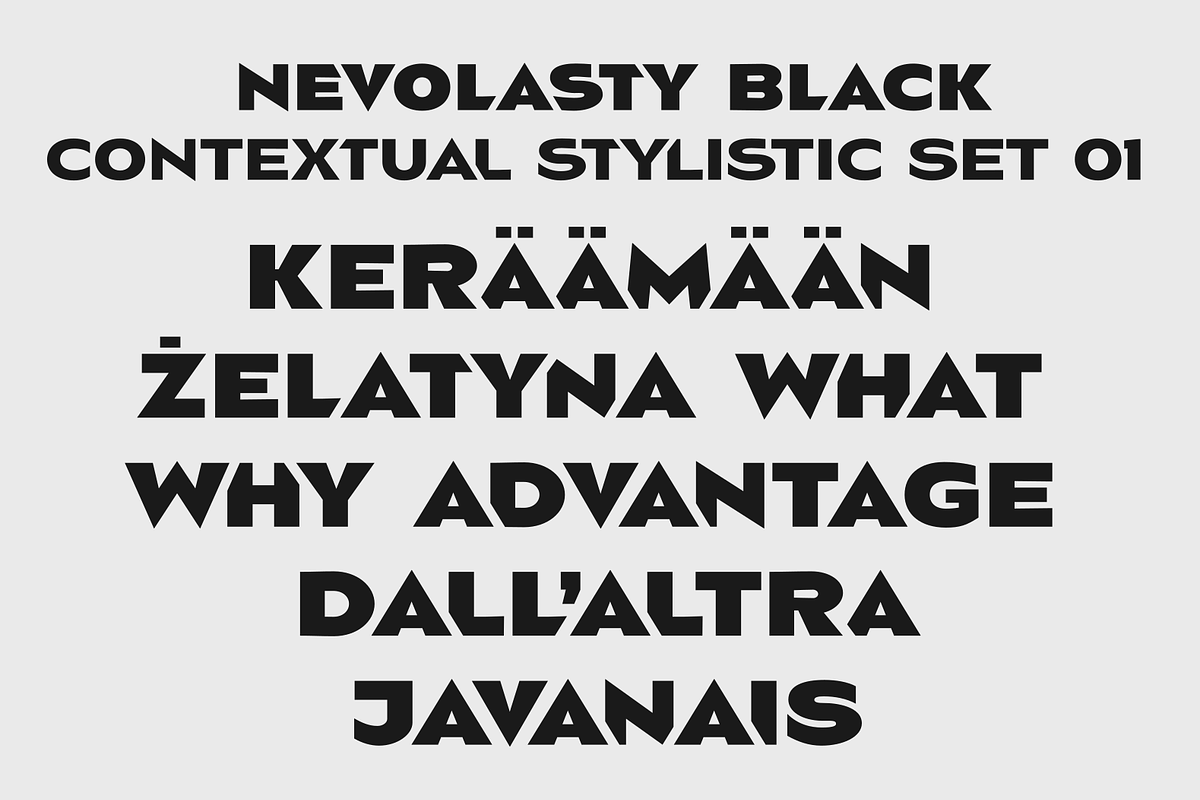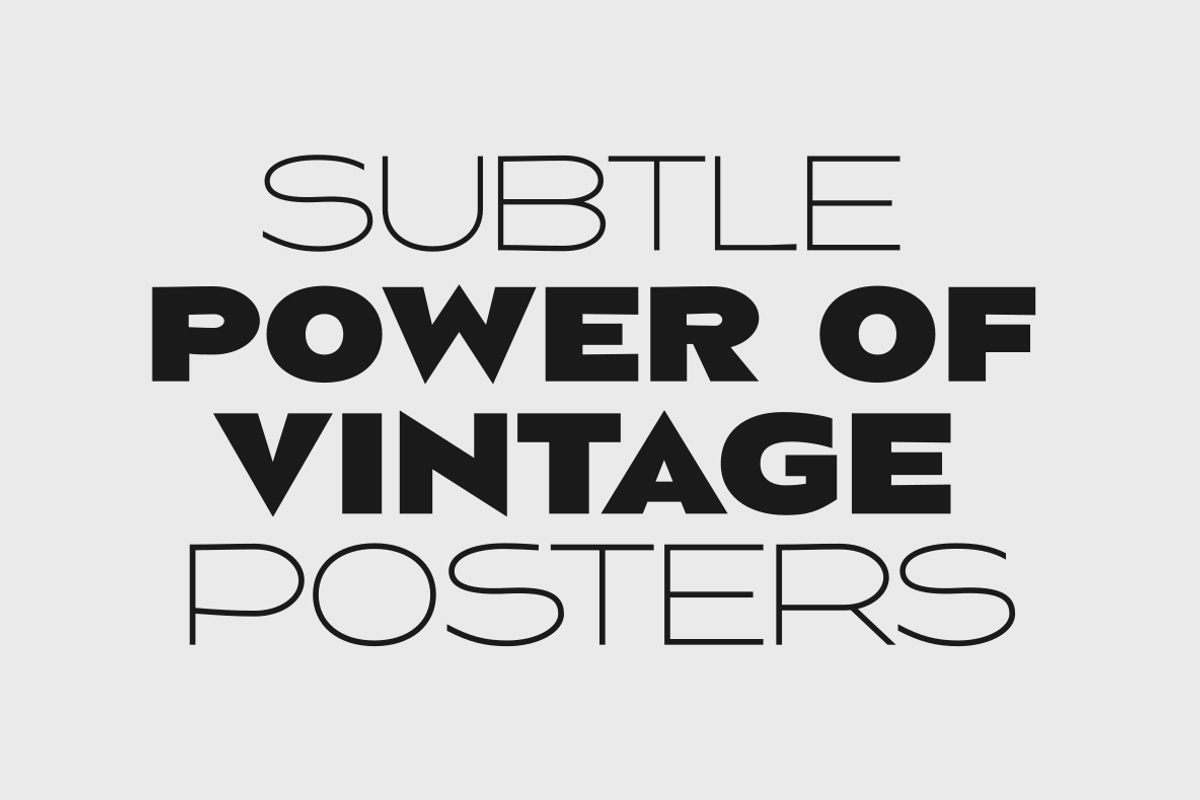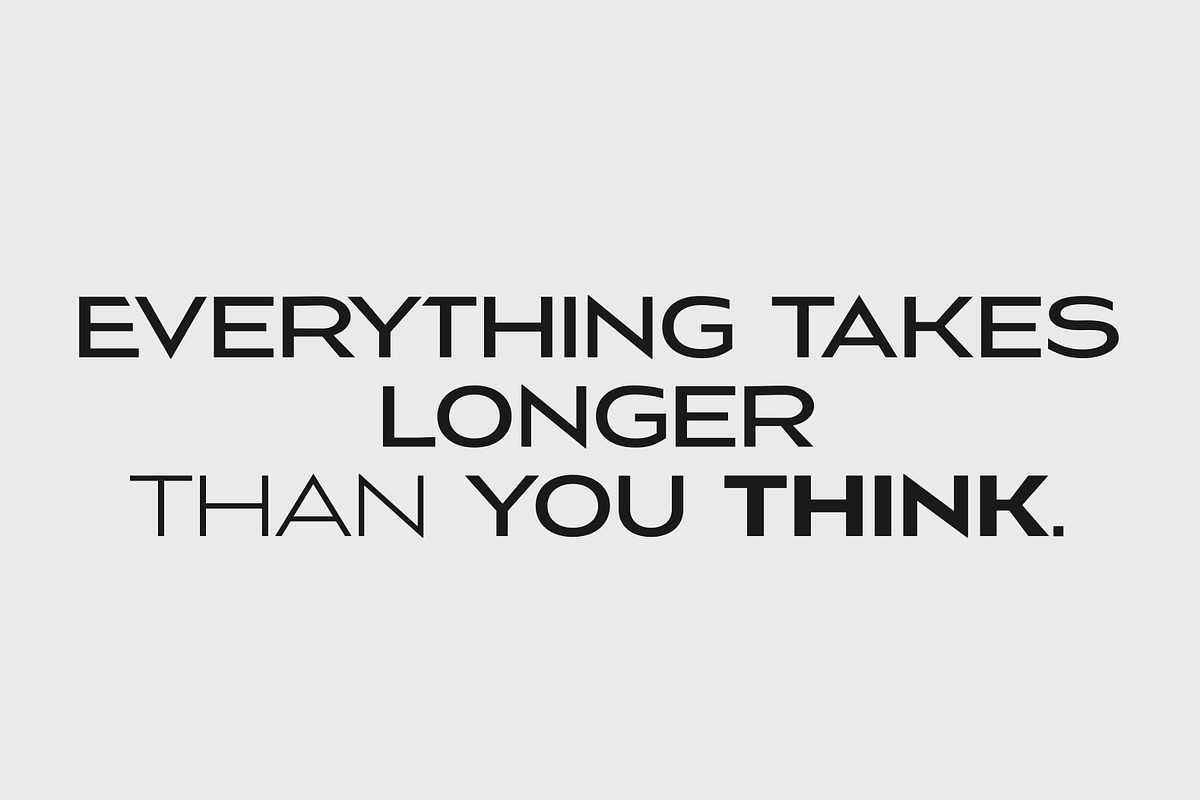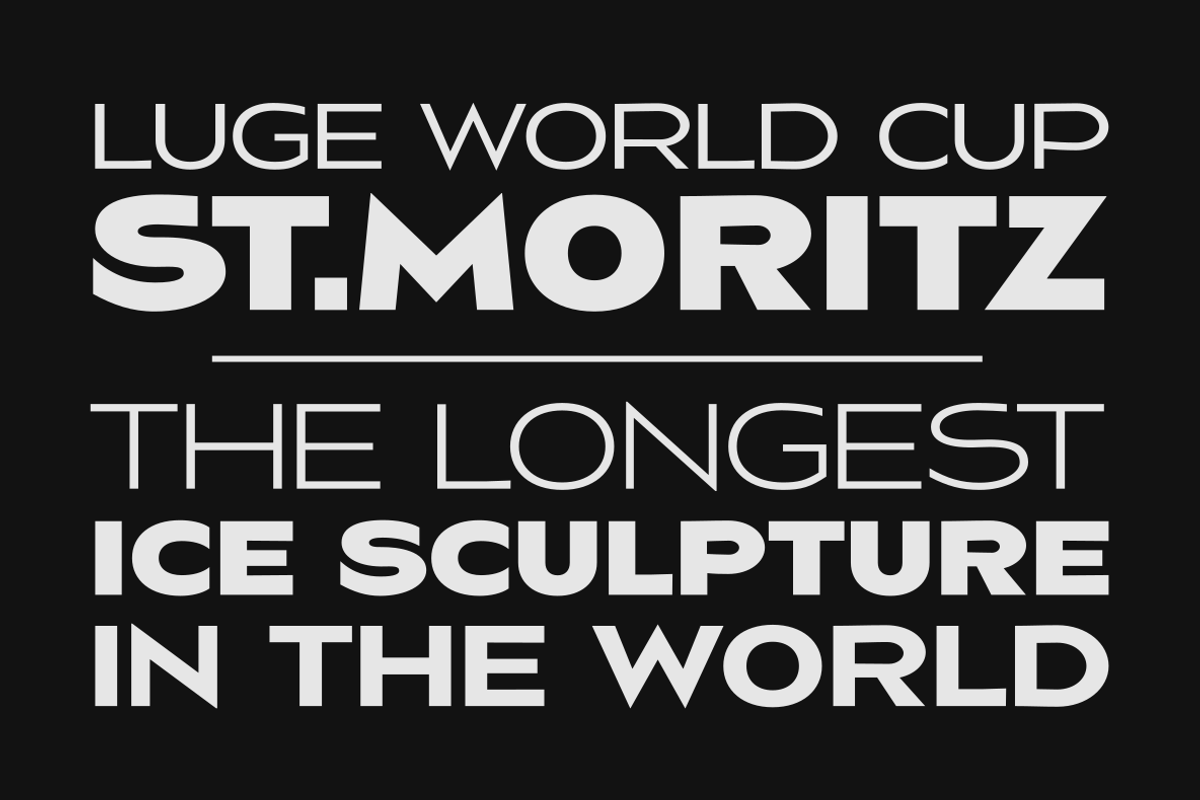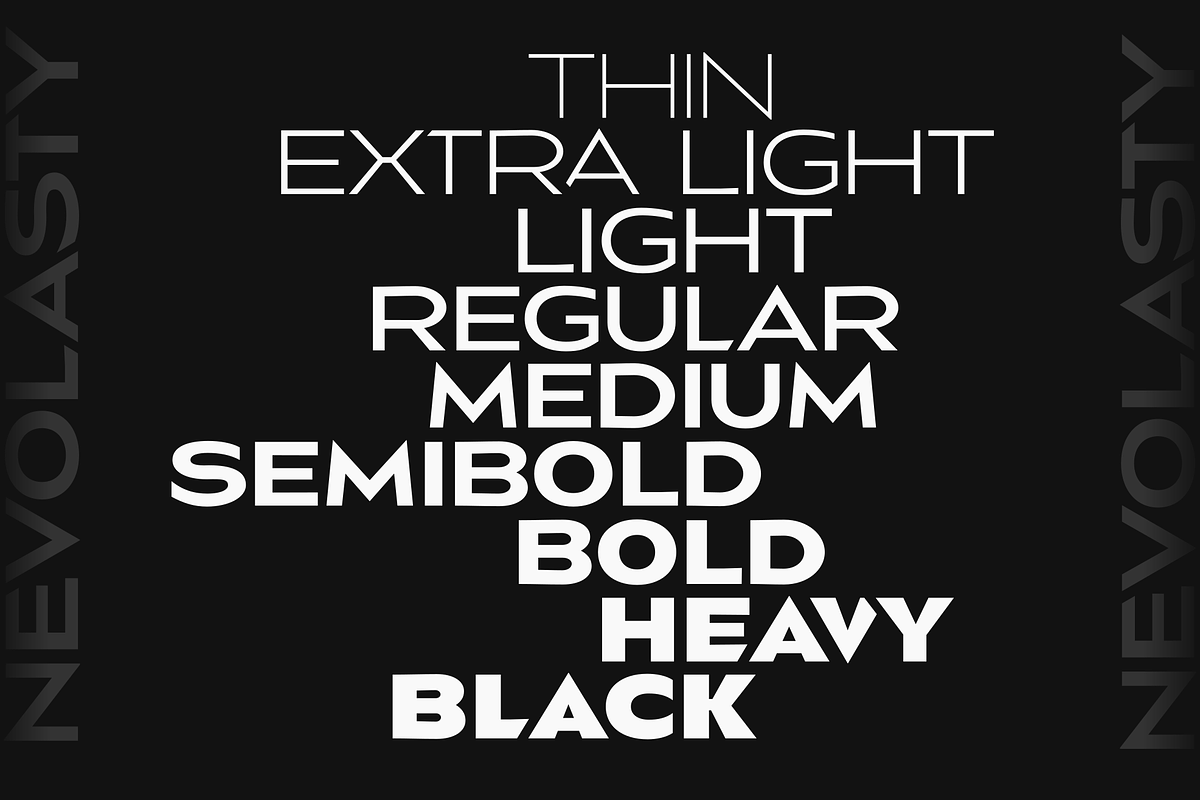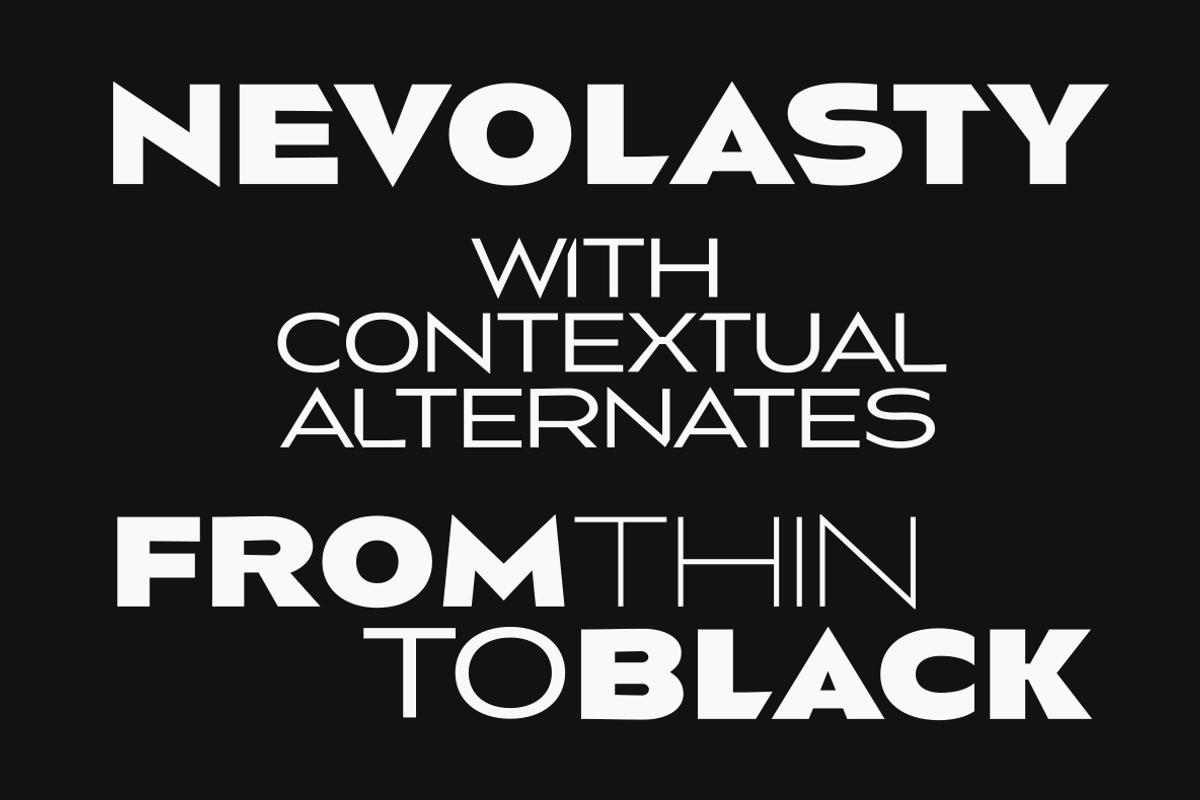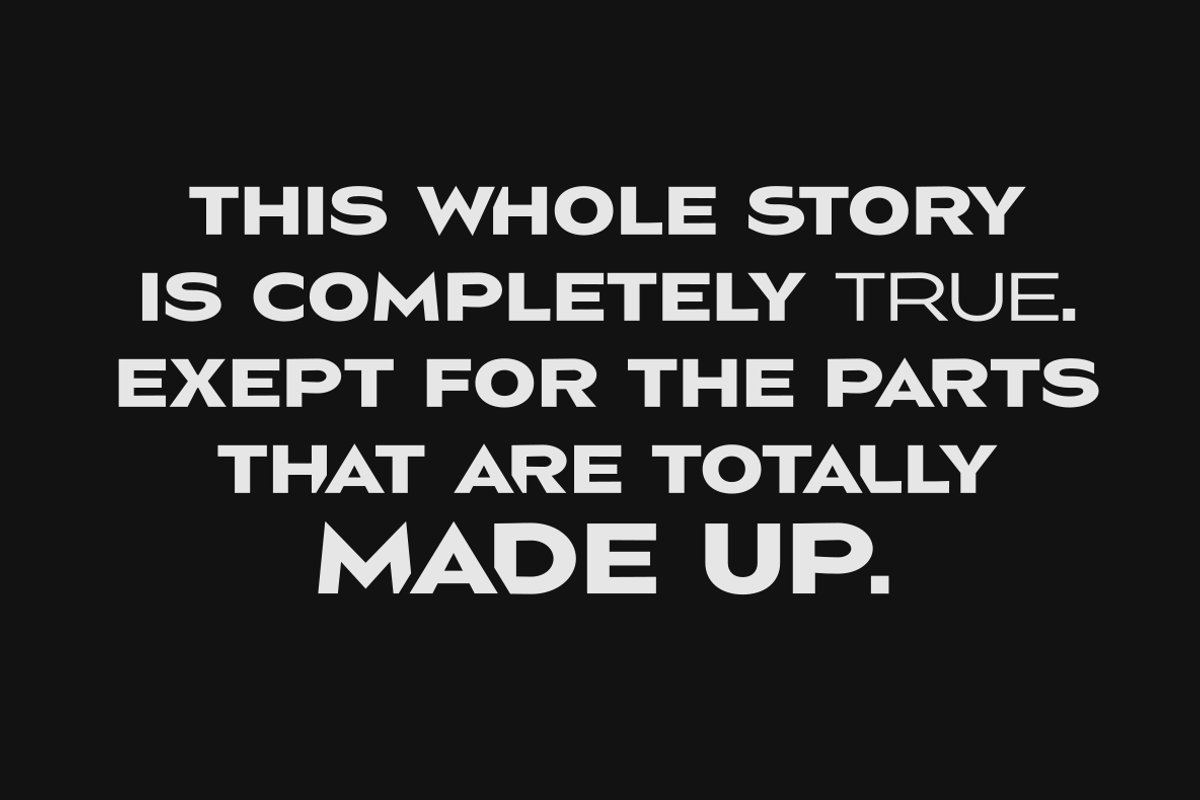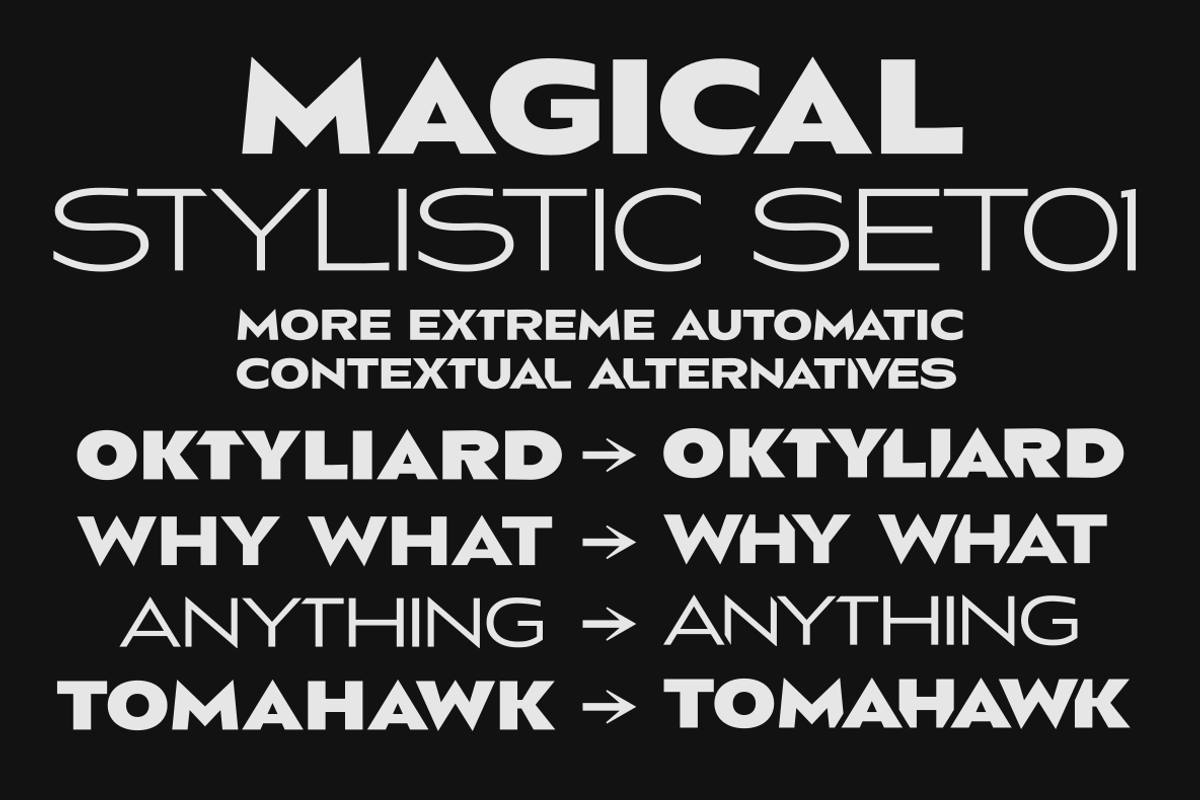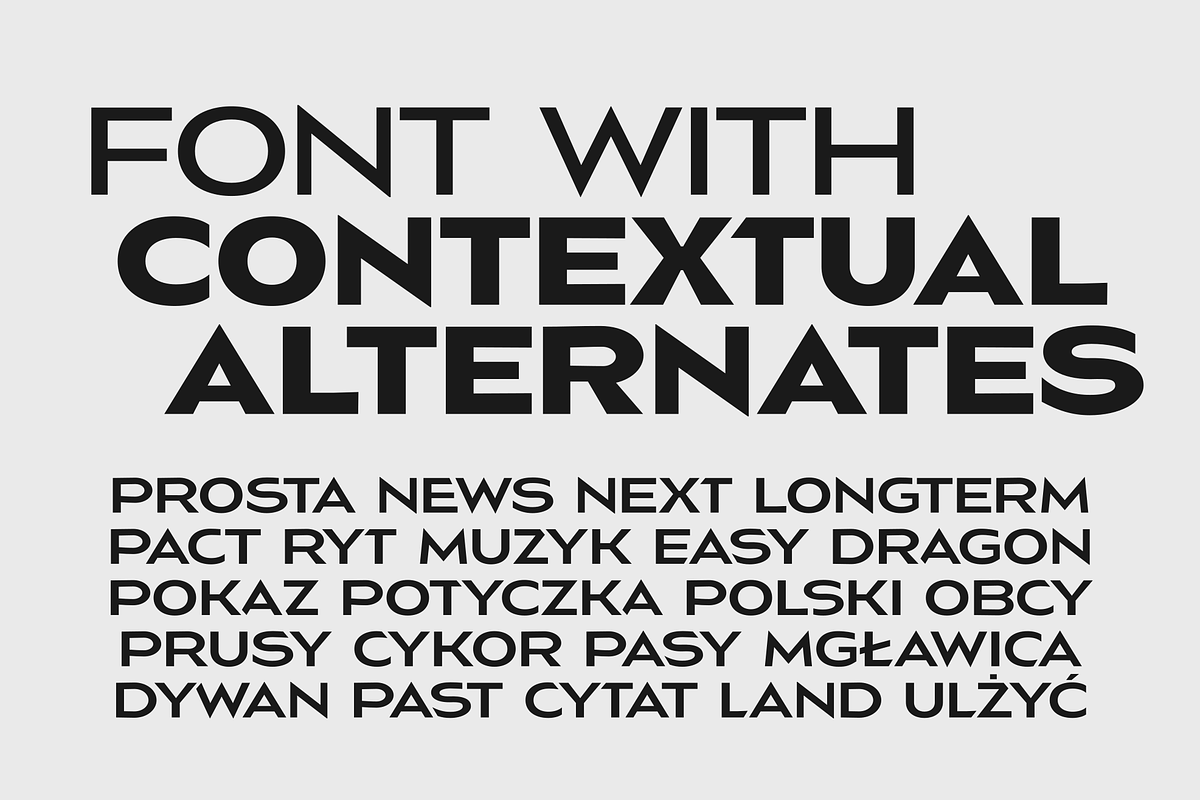
Nevolasty
Nevolasty is a geometric sans serif (uppercase) family. It comes in 9 weights - from Thin to Black. Perfect for graphic design, branding, packaging design but very versatile. With over 1000 alternate glyphs, this font has extensive Latin language support for Western, Central, and Eastern European and gives text a unique, elegant and modern feel. Try magical Stylistic Set01 with more extreme automatic contextual alternates.